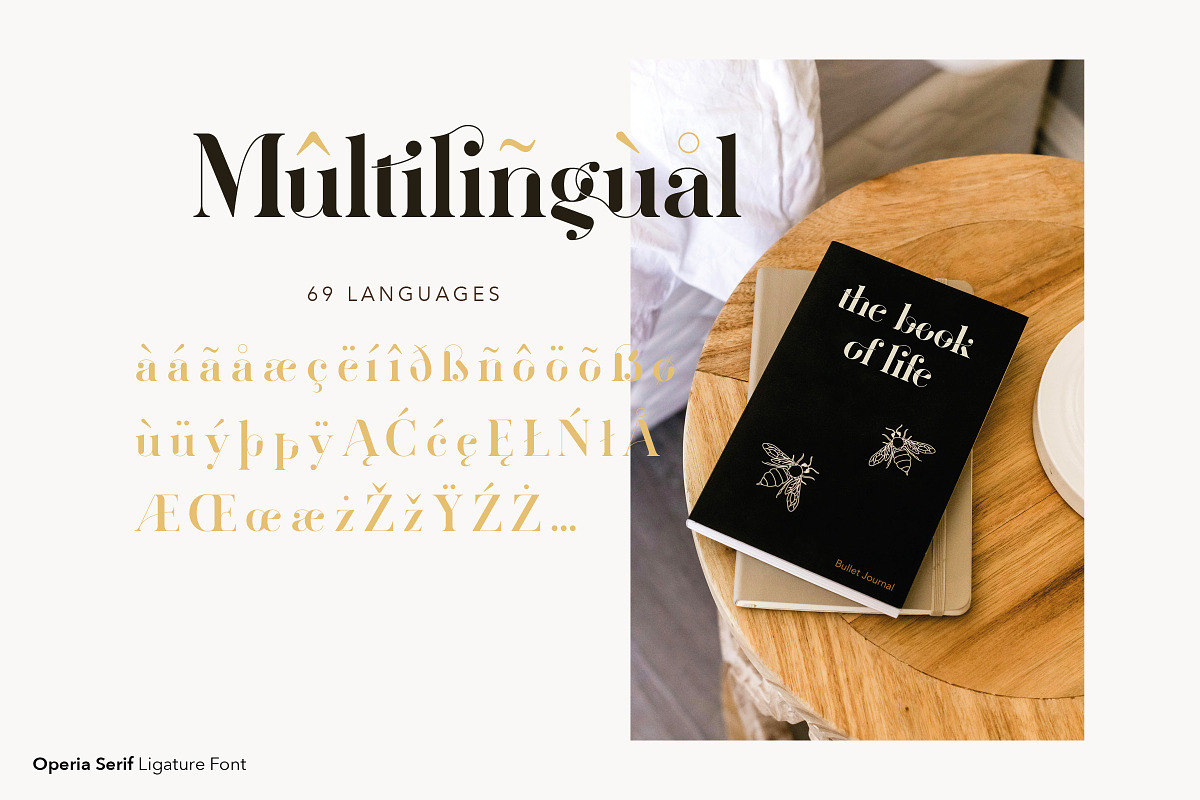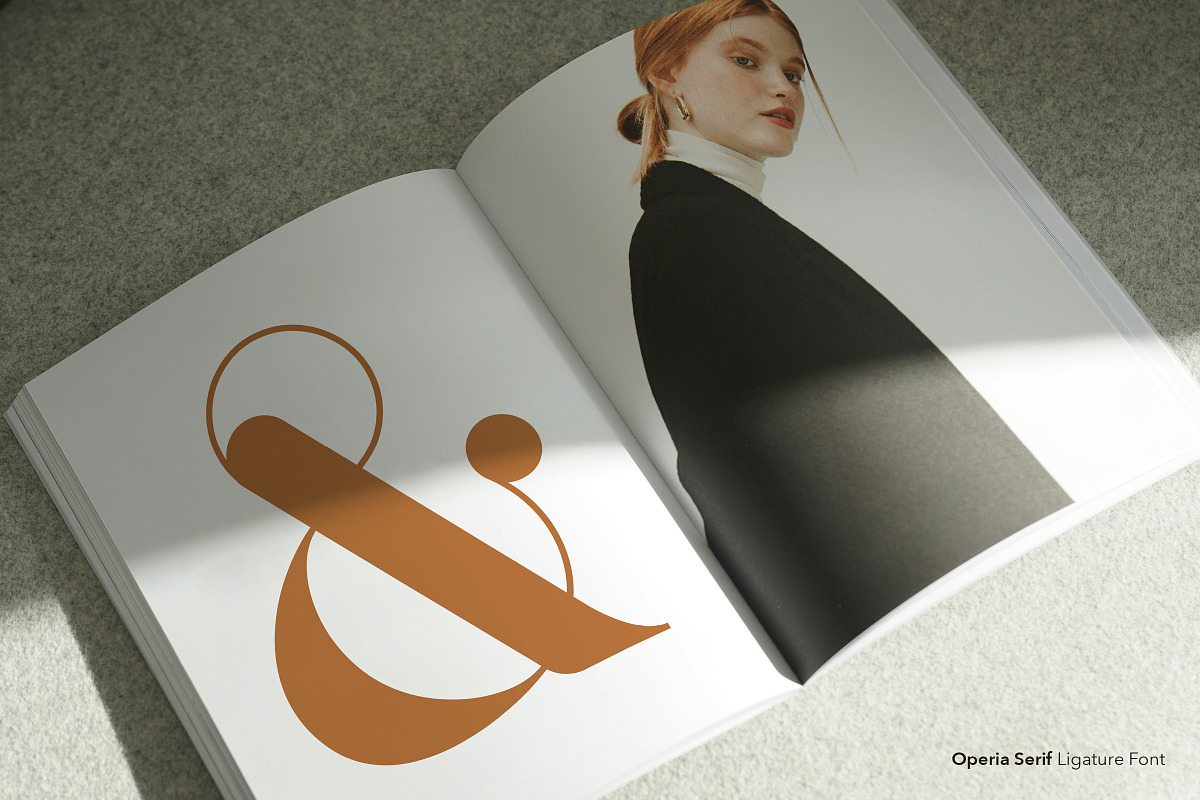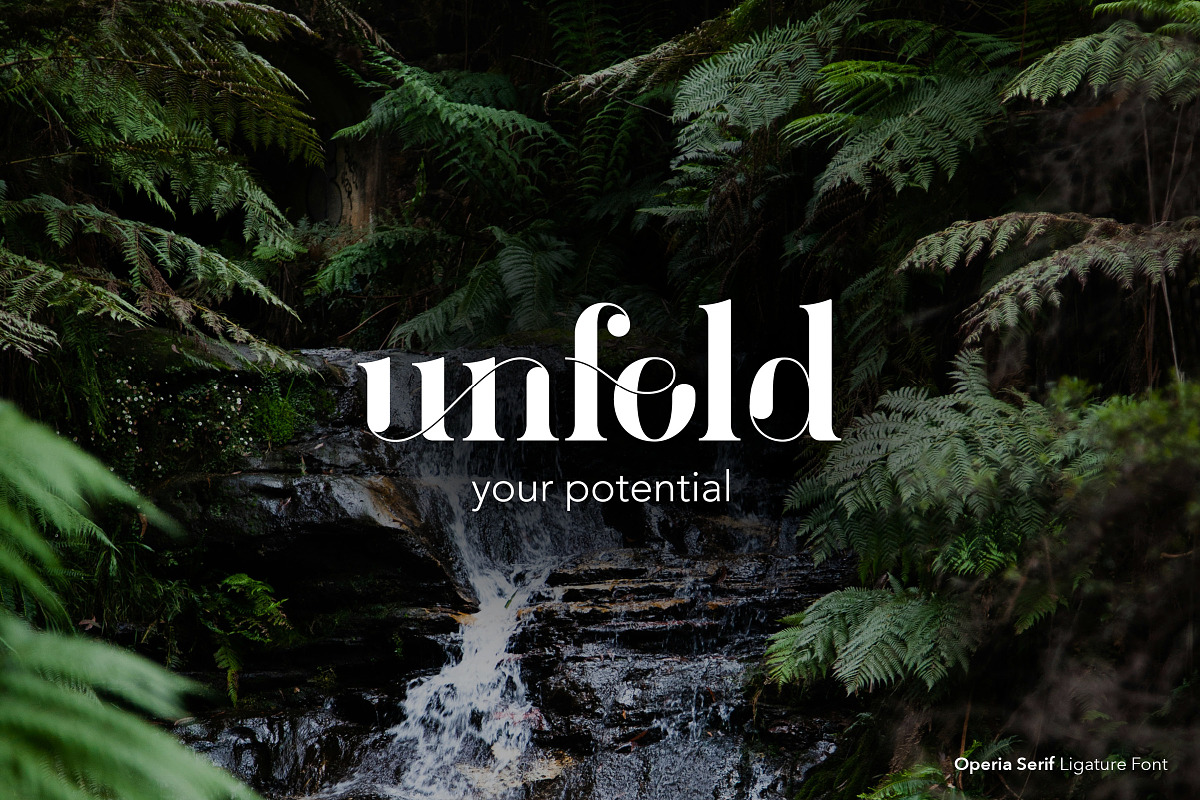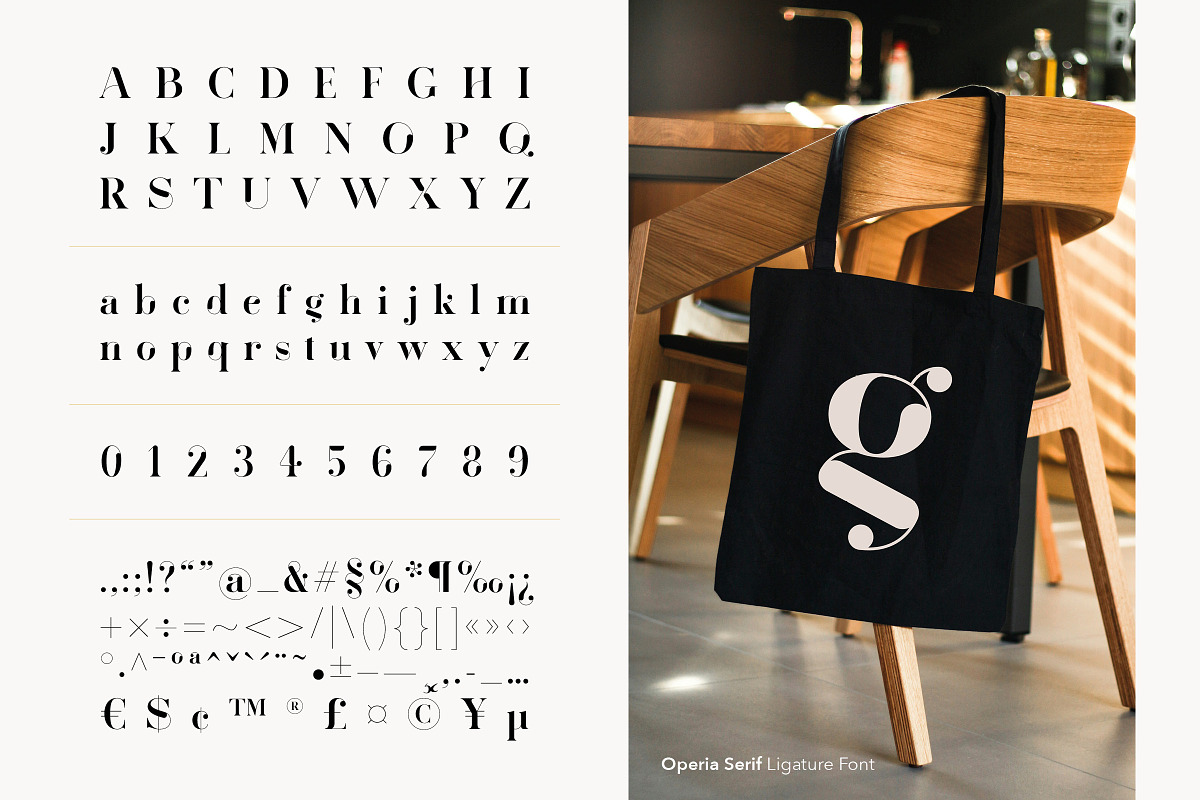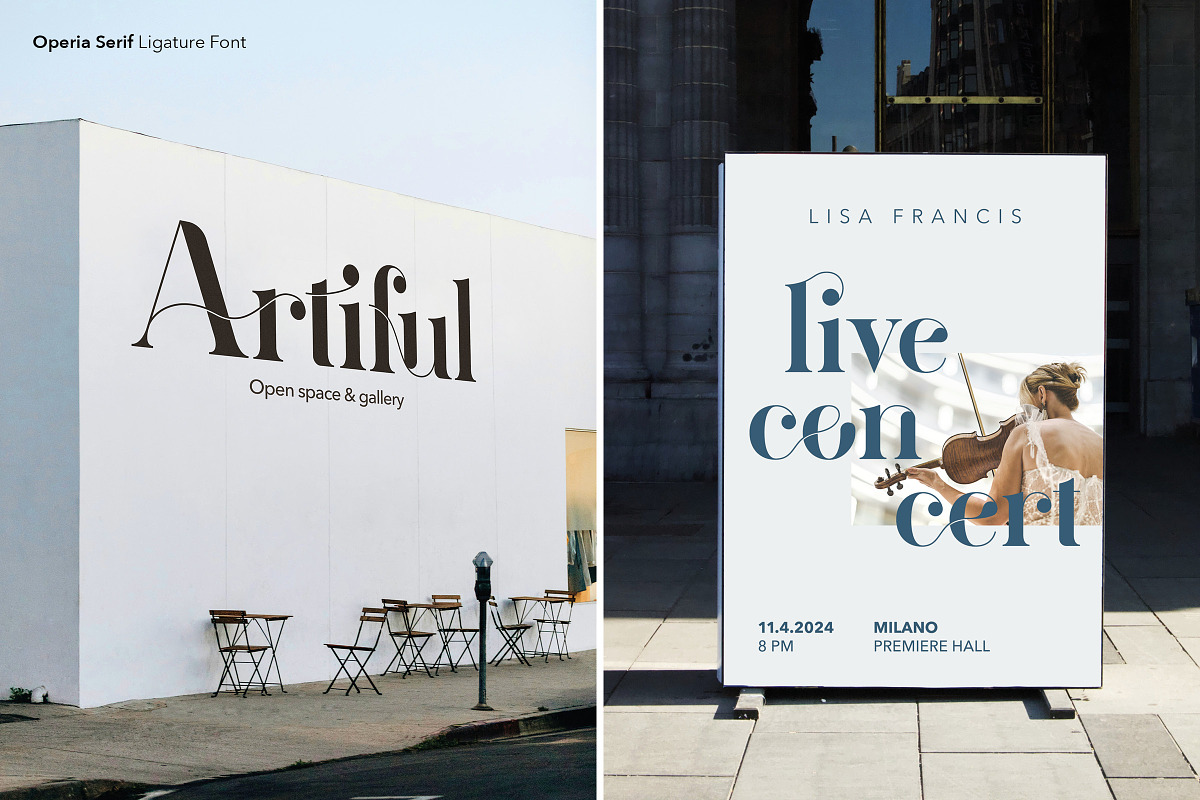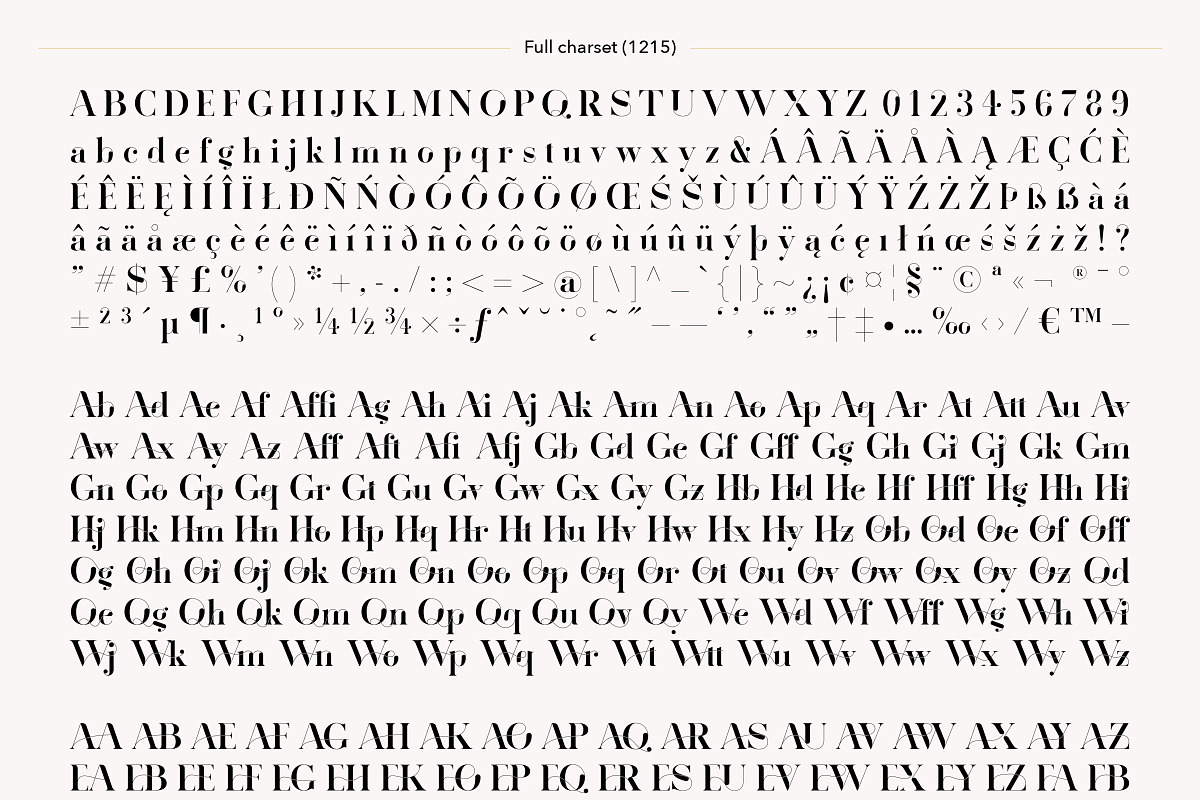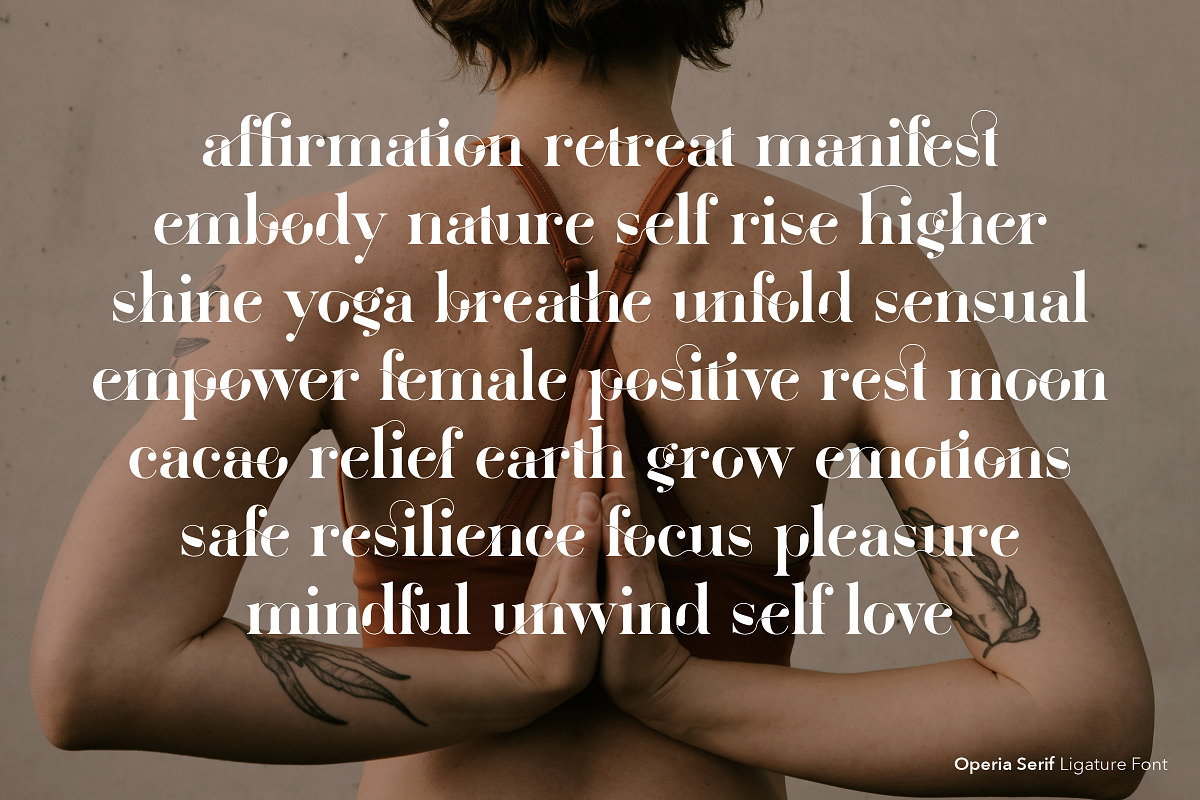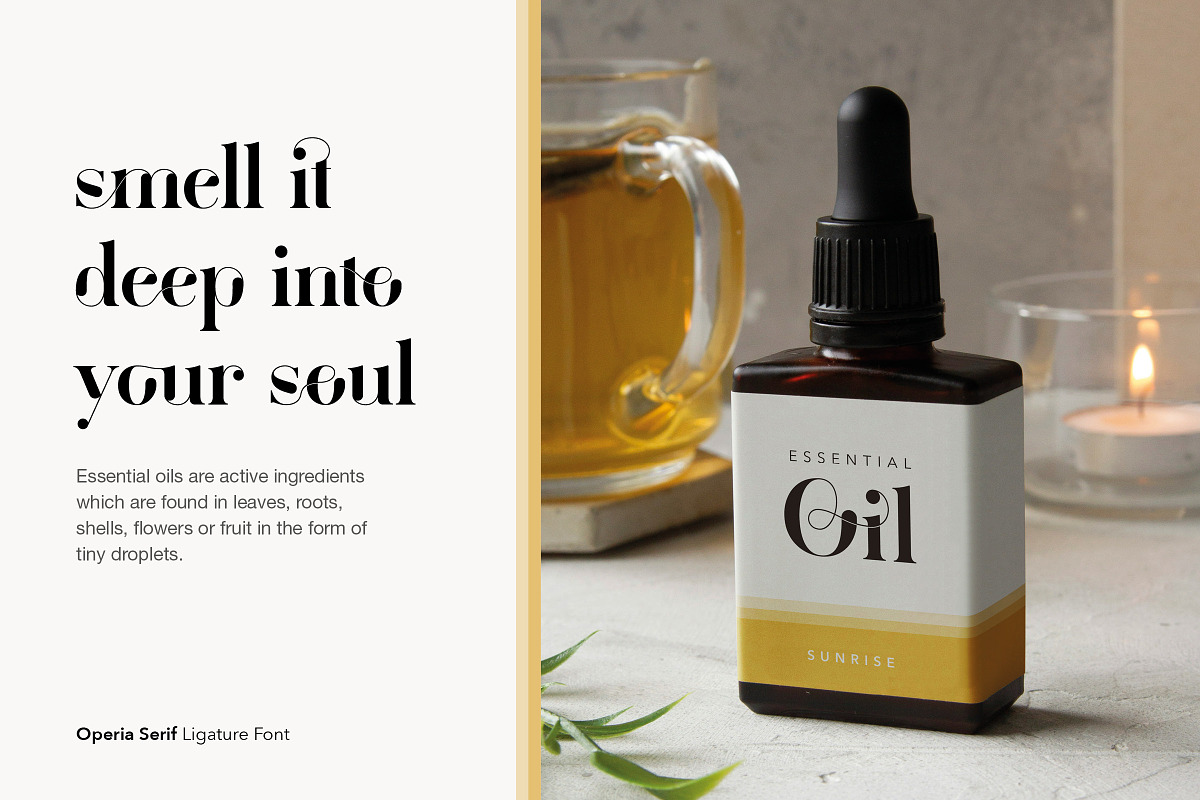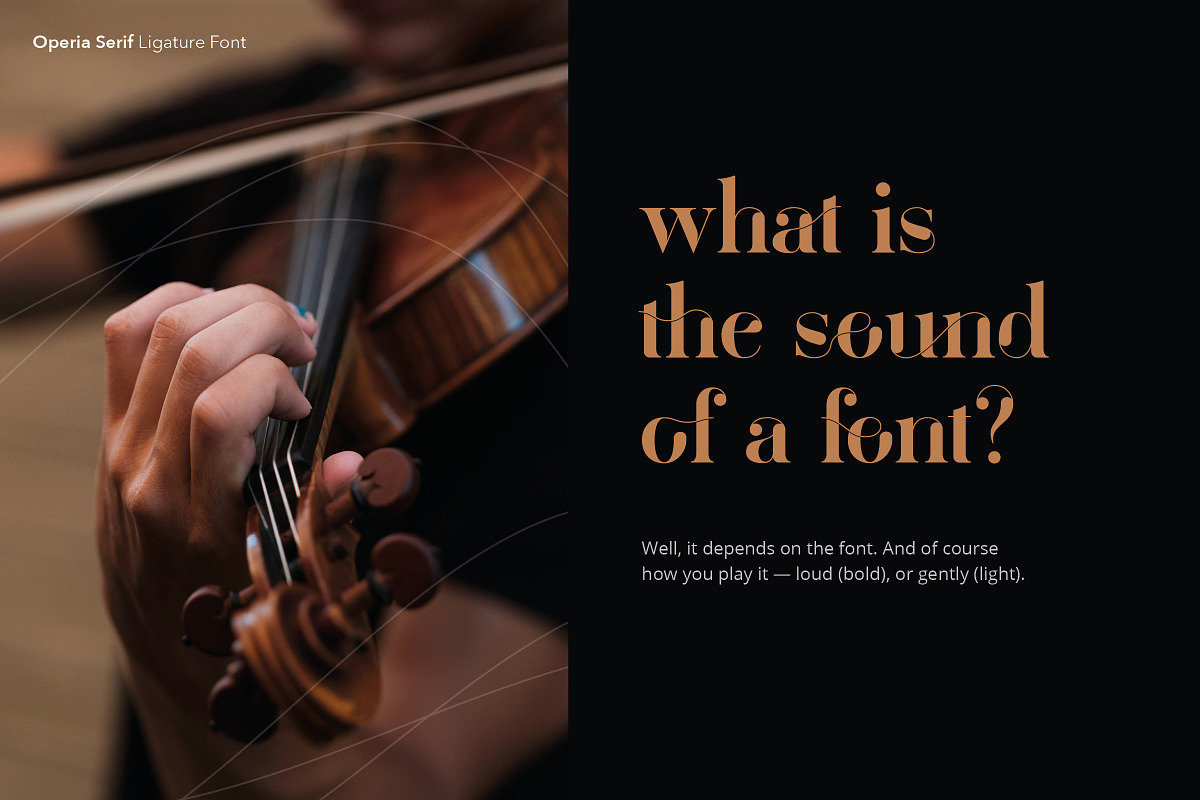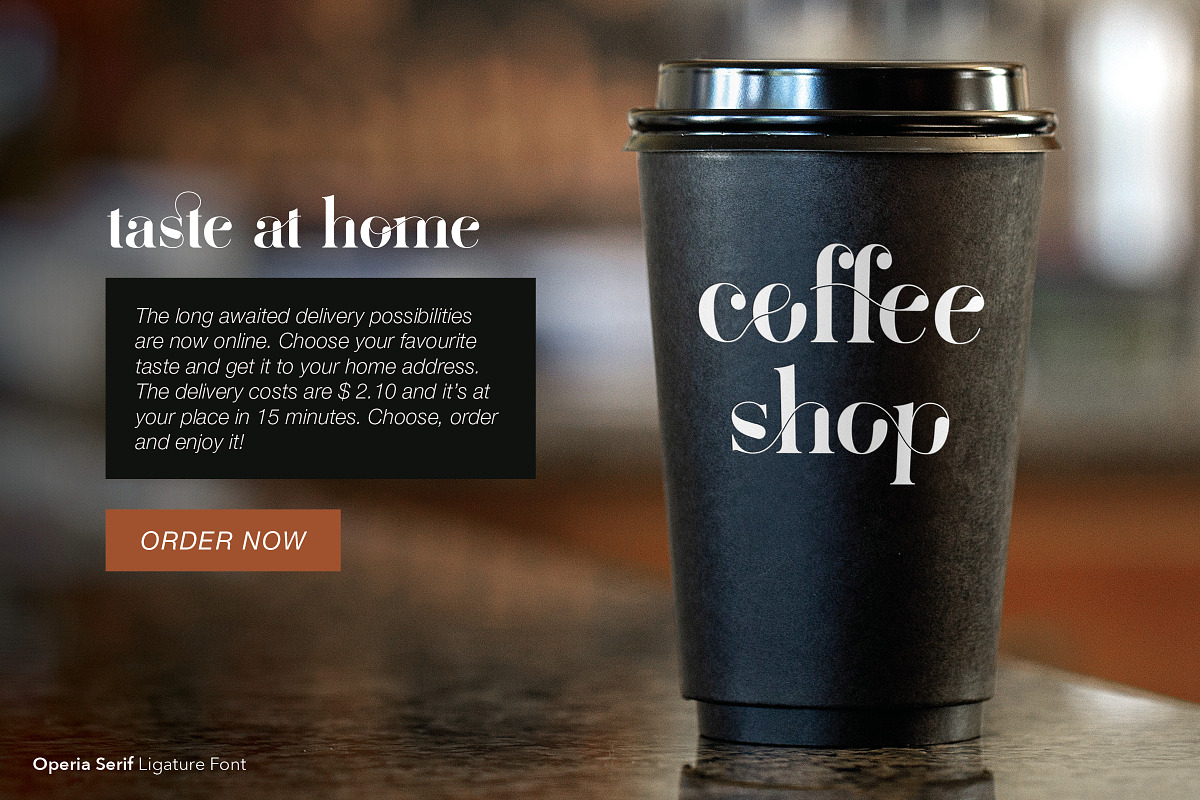
Operia – Serif Ligature Font
Operia is an elegant, high contrast serif font with almost endless ligatures.
It includes 965 beautifully linked letters in uppercase, lowercase and capitalized – two, three and even four characters are gently connected together. It’s a unique and contemporary typeface that flows like water and sounds like soothing orchestral music.
- 655 lowercase
- 180 UPPERCASE
- 130 Capitalized
- 1215 glyphs in total
- 965 ligatures
- Multilingual: 69 languages supported (Adobe Latin-1)
- Standard letters: uppercase & lowercase
- Numbers, punctuation, special characters, diacritics, …
- Optimized for print
Font pairing
Operia pairs best with geometric and humanist sans serif fonts like Franklin Gothic, Avenir, Helvetica, Open Sans, Lato, etc. (Italic or regular).
Topics & use cases
Operia Serif is a Display typeface that perfectly works for logos, packaging, big headlines or quotes — e.g. in the fields of yoga, lifestyle, design & arts, interior design, fashion, wedding, restaurants & bars, jewelry, cosmetics, beauty, breathwork, meditation & mindfulness, as well as female-oriented or spiritual coaching.
Idea & concept
The main idea was derived from the round arches of aqueducts and other classic architecture. The proportions are roughly based on Didot, but you will not recognize it anymore.